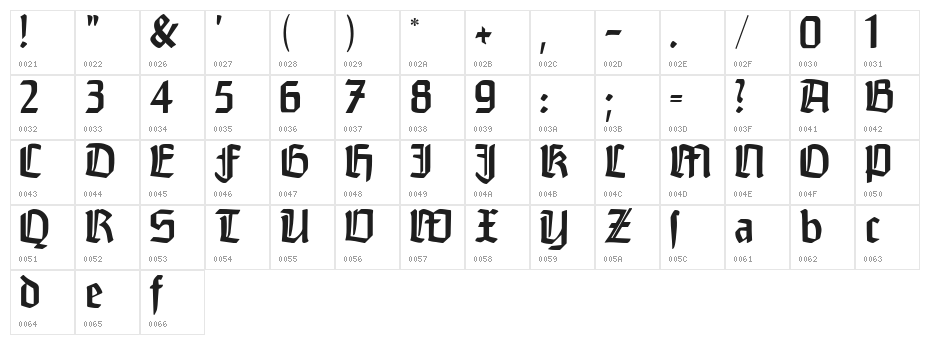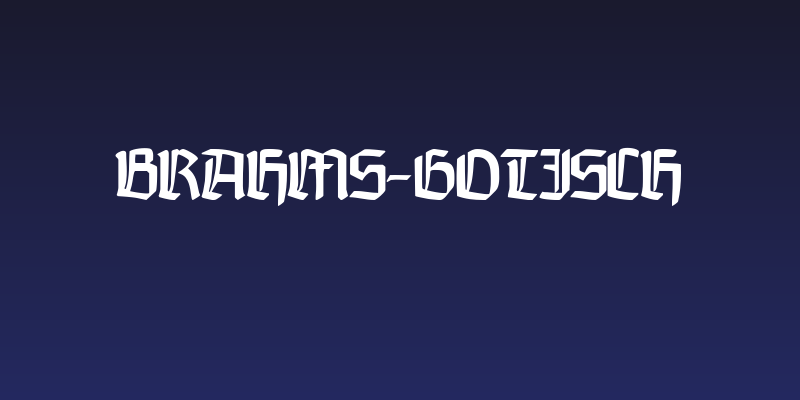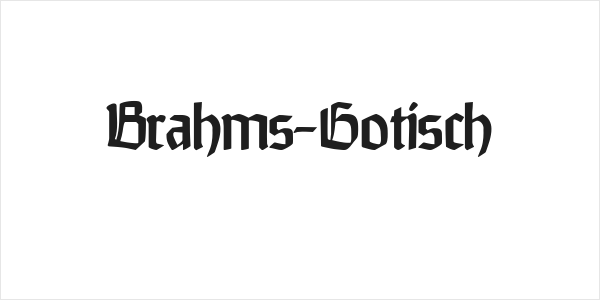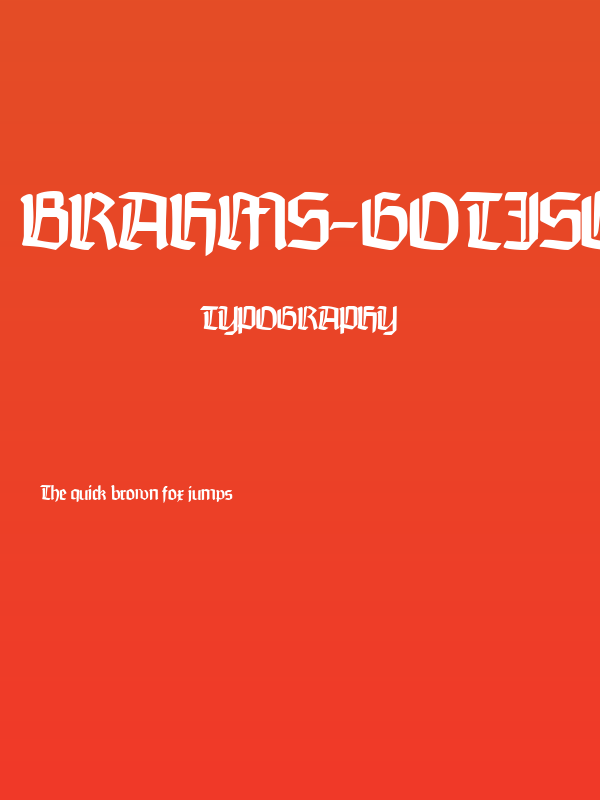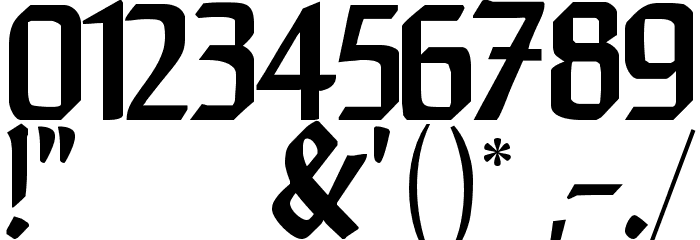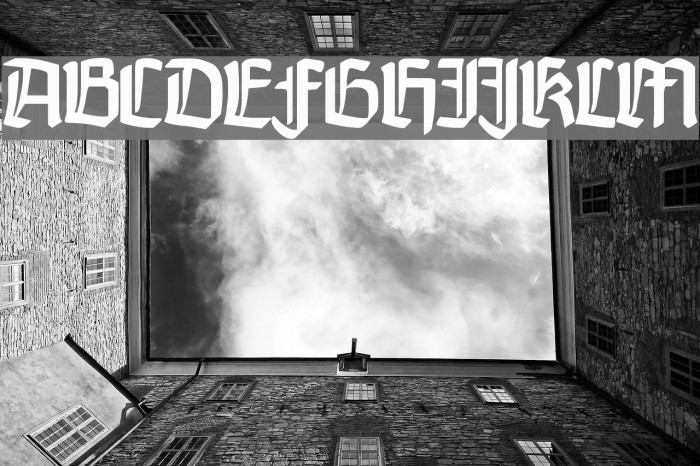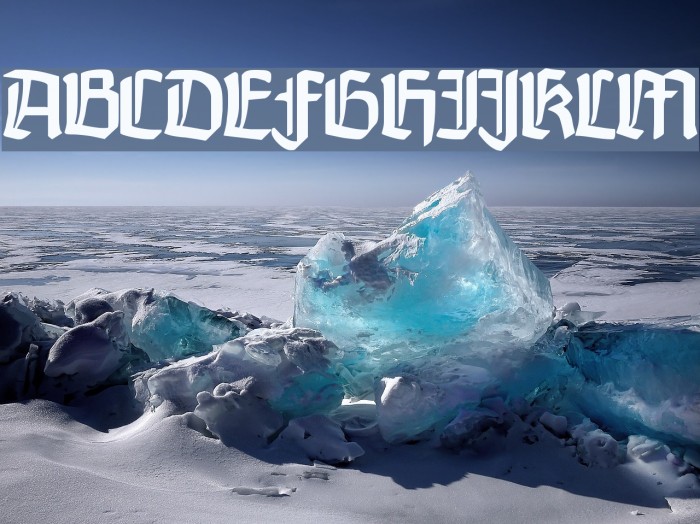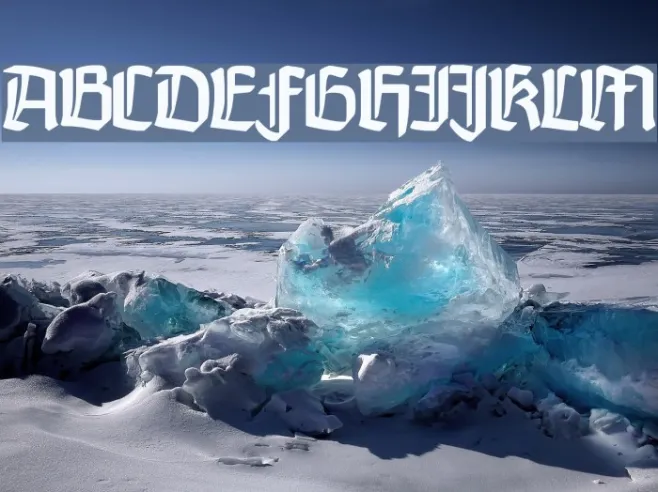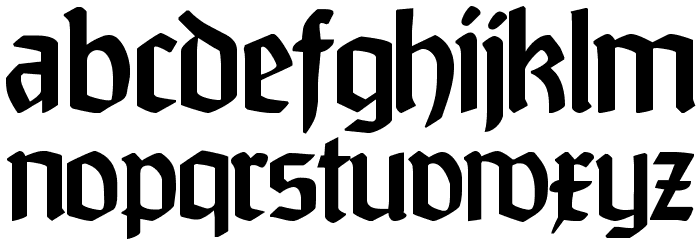
Brahms-Gotisch Font
Brahms-Gotisch Description
This font exhibits a traditional blackletter style, characterized by its ornate and intricate design. The uppercase letters are bold and angular, with sharp edges and a distinct medieval appearance. The lowercase letters maintain a similar style, with a slightly more rounded and flowing form. The numerals are consistent with the overall aesthetic, featuring sharp angles and a bold presence. Special characters are designed to complement the gothic theme, adding to the font's historical and decorative appeal. This font is ideal for projects that require a touch of classic elegance and a nod to historical typography.
| Proposed Projects | Ideal for historical documents, invitations, posters, and branding that require a classic or gothic touch. |